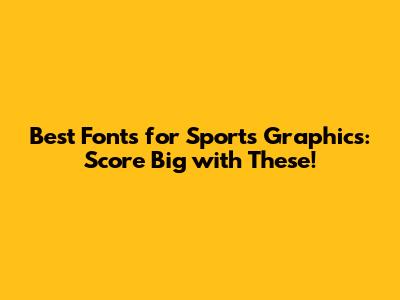
- Contrast is Key: Pair a bold sans-serif with a delicate script, or a sturdy serif with a clean sans-serif. This creates visual interest and hierarchy.
- Limit Your Fonts: Stick to two or three fonts max. Too many fonts can make your design look chaotic and unprofessional.
- Consider the Mood: Make sure your font pairings match the overall tone of your sports graphic. A serious team needs a serious font pairing.
- Test it Out: Always test your font pairings in different sizes and contexts to make sure they look good and are legible.
- Nike: Often uses a bold, sans-serif font like Futura or Helvetica for their branding and advertising, conveying a sense of speed and innovation.
- ESPN: Employs a variety of sans-serif fonts, such as Bebas Neue and Roboto, to create a modern and dynamic look for their sports broadcasts and digital content.
- NBA Teams: Many NBA teams use custom fonts that reflect their unique brand identities, often incorporating elements of their city or team history.
Choosing the right font for your sports graphics is like picking the perfect athlete for your team – it can make all the difference! In the world of sports, visual communication is key. Whether it's for team logos, player profiles, game-day posters, or social media content, the fonts you use play a crucial role in conveying the right message and capturing the audience's attention. So, let's dive into the awesome world of fonts and discover some top-notch choices that will help you create killer sports graphics.
Why Font Choice Matters in Sports Graphics
Guys, seriously, don't underestimate the power of a good font! In sports graphics, your font choice communicates more than just words; it conveys the spirit, energy, and identity of the team or event. Think about it: a sleek, modern font can give a sense of speed and innovation, while a bold, classic font might evoke tradition and strength. Using the wrong font can make your designs look amateurish or, even worse, send the wrong message entirely.
Think of the fonts as the voice of your brand. Each font has a unique personality. Selecting a font that aligns with the team's image or the nature of the sport is vital. A youthful, energetic font might be perfect for a skateboard event, whereas a sturdy, authoritative font would be more suited for a football team. Consistency is also key. Using the same font family across all your sports graphics helps establish a cohesive and professional brand identity. This consistency makes your visuals instantly recognizable and reinforces your brand's message.
Moreover, the legibility of your chosen font is paramount. Sports graphics often need to be readable at a glance, whether they're displayed on a stadium banner, a TV screen, or a social media post. Opt for fonts that are clear and easy to read, even from a distance or at a smaller size. Consider the font's weight, spacing, and letterforms to ensure maximum readability.
And let’s not forget about the emotional impact. Fonts can evoke feelings of excitement, determination, nostalgia, or pride. A well-chosen font can amplify the emotional connection between fans and their favorite teams or players. By understanding the psychology of fonts and their ability to influence perception, you can create sports graphics that truly resonate with your target audience. So, take your time, experiment with different options, and always consider the overall message you want to convey. The right font can turn a good design into a great one!
Top Font Categories for Sports Graphics
Alright, let's break down the font game into categories. Knowing these will seriously level up your design skills.
1. Bold and Impactful Sans-Serif Fonts
When it comes to sports graphics, sans-serif fonts are often the go-to choice for a reason. Their clean, modern, and straightforward appearance makes them ideal for conveying a sense of strength, speed, and dynamism – all essential qualities in the world of sports. These fonts lack the small decorative strokes (serifs) found in traditional fonts, giving them a more contemporary and minimalist look. They're super versatile and work well in a variety of applications, from logos and headlines to jerseys and social media graphics.
One of the biggest advantages of using sans-serif fonts in sports graphics is their legibility. Their simplicity ensures that the text remains clear and easy to read, even at a distance or in fast-paced environments. This is crucial when you need to grab people's attention quickly, such as on a stadium banner or a TV broadcast. Common characteristics of these fonts include uniform stroke weights, geometric shapes, and a lack of ornamentation.
Some top-notch sans-serif fonts that are widely used in sports graphics include Bebas Neue, Montserrat, and Roboto. Bebas Neue is a tall and condensed font that exudes modernity and power. It's perfect for headlines and titles that need to make a strong statement. Montserrat is another excellent choice, known for its clean lines and versatility. It works well in both headings and body text, making it a great all-around option. Roboto is a highly legible and modern font that's widely used in digital applications. Its open letterforms and neutral appearance make it a reliable choice for a variety of sports-related designs.
When selecting a sans-serif font for your sports graphics, consider the overall aesthetic you want to achieve. Do you want something that feels aggressive and energetic, or something more clean and refined? Experiment with different font weights and styles to find the perfect fit for your project. Also, be sure to pair your sans-serif font with complementary fonts that will enhance the overall visual appeal of your design. With the right combination, you can create sports graphics that are both visually striking and highly effective in conveying your message. Sans-serif fonts offer a versatile and impactful solution for sports graphics, providing the readability and modern aesthetic needed to capture attention and communicate effectively.
2. Dynamic and Energetic Script Fonts
If you're looking to inject some flair and personality into your sports graphics, script fonts can be a fantastic choice. These fonts mimic the look of handwriting, adding a touch of elegance, energy, and dynamism to your designs. They're particularly effective for creating logos, slogans, and other visual elements that need to stand out and make a statement. Script fonts come in a wide variety of styles, from elegant and flowing to bold and brush-like, giving you plenty of options to choose from.
One of the biggest advantages of using script fonts in sports graphics is their ability to convey a sense of movement and excitement. The cursive strokes and varying line weights create a feeling of energy, which can be especially appealing in sports-related designs. However, it's important to use script fonts sparingly and strategically. Overusing them can make your designs look cluttered and difficult to read. Instead, use them to highlight key words or phrases, or as a decorative element to add visual interest.
When selecting a script font for your sports graphics, consider the overall tone and style you want to achieve. Do you want something that feels playful and whimsical, or something more sophisticated and refined? A casual, brush-style script might be perfect for a skateboarding event, while a formal, calligraphic script could be more appropriate for a high-end sporting event.
Some popular script fonts that work well in sports graphics include Brush Script, Pacifico, and Lobster. Brush Script has a handwritten feel with bold strokes. Pacifico is a fun and friendly script that's perfect for creating a laid-back and approachable vibe. Lobster is a bold and eye-catching script that works well for headlines and titles. These fonts can add a touch of personality to your graphics.
When incorporating script fonts into your sports graphics, pay attention to the spacing and kerning. Script fonts often have unique letterforms and connections, so it's important to adjust the spacing to ensure that the text is legible and visually appealing. Also, be sure to pair your script font with a complementary font that will provide a good contrast and balance to your design. By using script fonts thoughtfully and strategically, you can create sports graphics that are both dynamic and memorable.
3. Strong and Sturdy Serif Fonts
While sans-serif fonts often steal the spotlight in modern design, serif fonts have a timeless appeal that can bring a sense of tradition, authority, and strength to your sports graphics. Serif fonts are characterized by the small decorative strokes (serifs) that extend from the main strokes of the letters. These fonts tend to have a more formal and classic look, making them ideal for sports teams or events that want to project an image of heritage and stability.
One of the biggest advantages of using serif fonts in sports graphics is their readability. The serifs help guide the eye along the text, making it easier to read, especially in longer blocks of text. This can be particularly useful for team bios, event descriptions, or other informational content. Common characteristics of serif fonts include varying stroke weights, bracketed serifs, and a generally more ornate appearance than sans-serif fonts.
Some classic serif fonts that are well-suited for sports graphics include Baskerville, Georgia, and Times New Roman. Baskerville is an elegant and refined font that exudes sophistication and class. It works well for creating a sense of tradition and prestige. Georgia is a highly legible and versatile font that's widely used in both print and digital applications. Its open letterforms and clear serifs make it a reliable choice for a variety of sports-related designs. Times New Roman is a classic and timeless font that's instantly recognizable. While it may not be the most exciting choice, it's a safe bet for ensuring readability and professionalism.
When selecting a serif font for your sports graphics, consider the overall tone and style you want to convey. Do you want something that feels formal and traditional, or something more modern and approachable? A heavier, more slab-serif font might be perfect for a football team, while a lighter, more delicate serif font could be more appropriate for a golf tournament.
When incorporating serif fonts into your sports graphics, pay attention to the line spacing and kerning. Serif fonts often have intricate details, so it's important to ensure that the text is properly spaced to avoid overcrowding or readability issues. Also, be sure to pair your serif font with a complementary font that will provide a good contrast and balance to your design. By using serif fonts thoughtfully and strategically, you can create sports graphics that evoke a sense of history, strength, and reliability.
Font Pairing Tips for Killer Sports Graphics
Okay, choosing a font is one thing, but pairing them? That's where the magic happens! Here are some tips:
Examples of Great Sports Graphics Fonts in Action
To help you visualize these font concepts, let's look at some real-world examples of sports graphics that use fonts effectively:
Final Thoughts: Level Up Your Game with the Right Fonts
So, there you have it, guys! Choosing the right fonts for your sports graphics can make a huge difference in how your designs are perceived. Whether you go for a bold sans-serif, a dynamic script, or a strong serif, remember to consider the message you want to convey and the audience you want to reach. With a little experimentation and attention to detail, you can create sports graphics that are visually stunning and highly effective. Now go out there and score big with your awesome font choices!